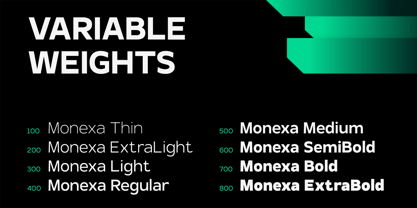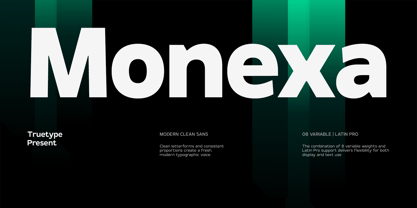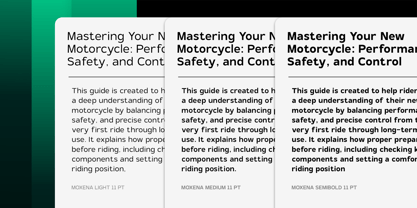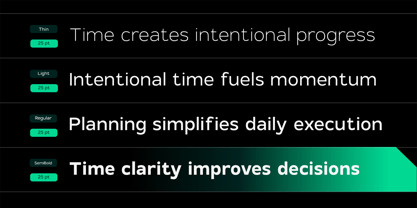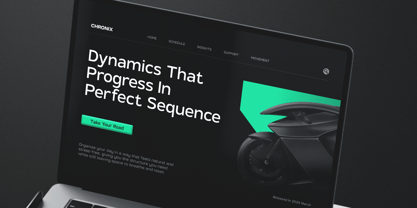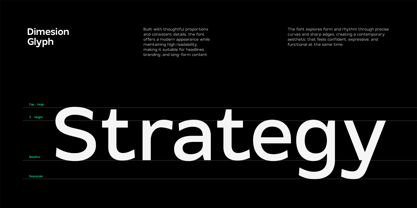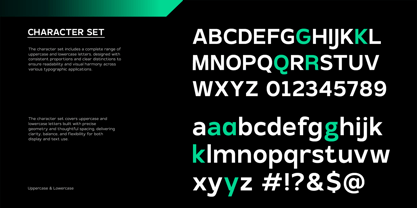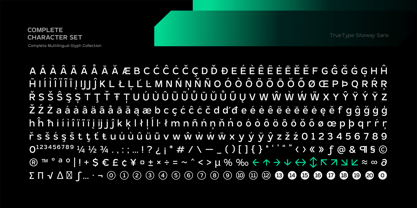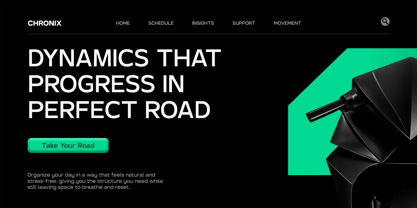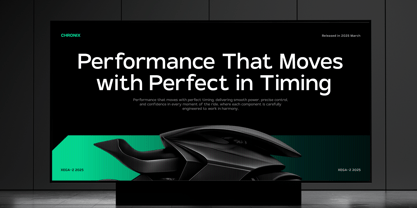
TRT Monexa
by True Type Lab
The TRT Monexa Font Family was designed by Yusilo Oktaprima Ardani and published by True Type Lab. TRT Monexa contains 8 styles and family package options. More about this family
TRT Monexa is a modern humanist sans serif typeface inspired by the natural readability of Open Sans and refined for contemporary digital use. Designed with clarity, neutrality, and usability at its core, Monexa delivers a clean typographic voice that feels familiar, professional, and effortlessly readable across screens. The letterforms feature open apertures, balanced proportions, and carefully tuned spacing, resulting in a calm and consistent reading experience. This makes TRT Monexa especially effective for UI design, web platforms, mobile applications, dashboards, editorial layouts, and long-form digital content where comfort and clarity are essential. Built as a reliable Open Sans alternative, TRT Monexa offers a more polished and modern aesthetic while retaining the functional strengths designers rely on. With support for variable font workflows, it adapts smoothly across different weights and use cases, making it ideal for scalable design systems and brand environments. TRT Monexa is created for products, companies, and teams that prioritize readability, accessibility, and long-term usability. From interface design to digital communication and corporate branding, Monexa works quietly in the background—supporting content, enhancing clarity, and maintaining visual consistency across platforms.